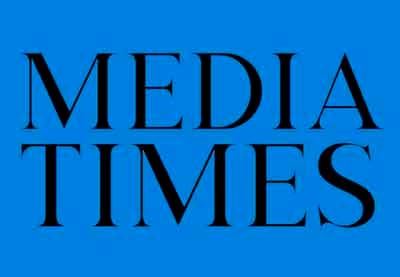
15 Fonts Similar to Cambria
What font is similar to Cambria? If you're looking for a clean, versatile font similar to Cambria, check out this list. You'll find the perfect Cambria font alternative and some other font inspiration too.
What Font Is Similar to Cambria?
If you're curious about what is similar to a Cambria font style, you're likely looking for a clean, classy serif font. A solid Cambria alternative is going to work well at both large and small sizes.
One of the reasons why fonts similar to Cambria are such a great choice is their versatility. If you need a standout font for a logo or title, a good Cambria alternative can do the job. Likewise, if you need a legible font for body copy, it's also a great choice. A font family like this is an excellent addition to any designer's font library.
Serif type, like the Cambria font, can work particularly well for long-form copy. Notice how it reads comfortably at smaller sizes. However, it's still a beautiful font—it can hold its own, especially if you use something like fonts similar to Cambria Bold. Font families like this can have so many diverse use cases.
15 Fonts Similar to Cambria to Download Now
1. Matina Serif Font (OTF, TTF, WOFF)
This beautiful serif font is so clean and easy to read. It's a great example of a font that scales very nicely. It works well for points of emphasis, like titles or headlines. However, it also remains legible and clear at small sizes.
2. Ranira Serif Type (OTF, TTF, WOFF)
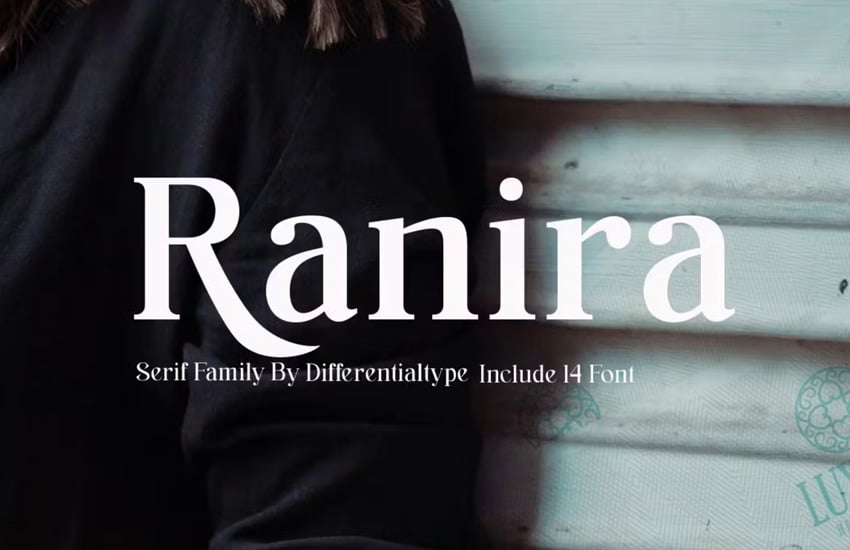
If you love serif type but you're looking for something a little more decorative, check out a font like this one. It does scale nicely, but it's a better fit for titles or even logo design. This font family includes seven variants.
3. Elfredo Serif Display (OTF, TTF)
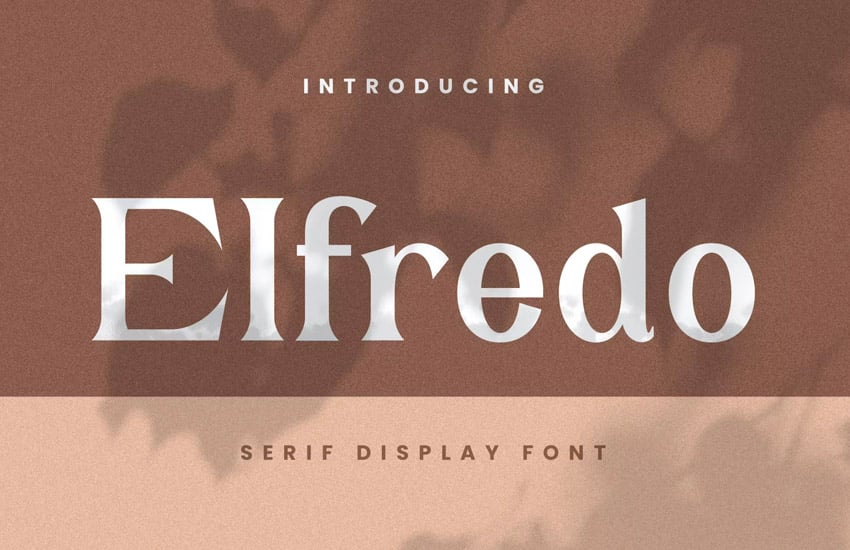
Check out the stylish serifs in this display font. It's a stylish aesthetic, and this one could pair really nicely with a signature font or a script font. If you're looking for a serif with plenty of logo potential, give this one a try.
4. Tamarind Modern Serif (OTF, TTF)
This modern serif font is also a stylized take on an aesthetic similar to the Cambria font. It scales nicely, as we see in this lovely example. However, this font would likely shine strongest in points of emphasis, like your headlines or titles.
5. Magreb Serif Font Family (OTF, TTF, WOFF)
Looking for a versatile font family that can do it all? This font is similar to Cambria, and it's packed with variants that you can use in your design work. Use this font in bold, semi-bold, italics, and more.
6. Moreland Serif Display Font (OTF, TTF)
Here's a serif font that pushes the look in a different direction. Aren't the stylish swoops visually interesting? This would be an excellent choice for display type or a logo design project.
7. Vanio Serif Font Family (TTF)
If you're looking for a complete serif font family with lots of options, choose this one. You get ten different options to work with, from bold to italic. All of these options make Vanio an excellent and versatile choice.
8. Montel Serif Font (OTF, TTF)
If you like fonts similar to Cambria but you also fancy high contrast, a font like this one might be right up your alley. It would be an excellent choice for a luxurious design project. This font could also really work well paired with a script font.
9. Elgraine Font Family (OTF, TTF)
Here's another serif font family packed with options. If you're looking for fonts similar to Cambria bold, regular, or italic, Elgraine is a perfect choice. You get all of those options and more with this professionally designed font.
10. Sibre Serif Type Family (OTF, TTF, WOFF)
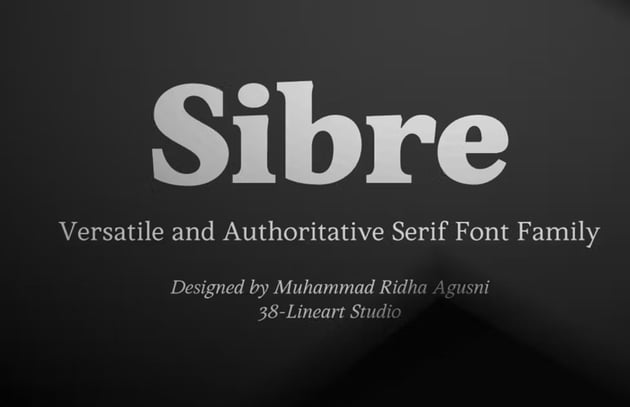
If you love fonts similar to Cambria Bold, there's plenty for you to see in this professional font family. Check out just how bold the weight in this family can get! Choose from a variety of styles in this versatile family.
11. Jacqualine Elegant Serif (OTF, TTF)
This elegant serif font incorporates some really memorable and playful curls. It's a fun choice if you fancy the look of a Cambria font style, but you're also looking for a little more whimsy. Give this font a try, especially at larger sizes.
12. The Memories Vintage Serif Font (OTF, TTF)
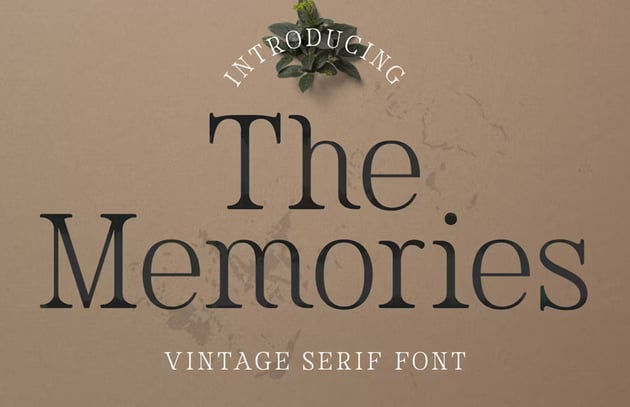
Here's an interesting take on serifs. The curves make for a really memorable look. There's vintage influence here, and you could play into that look in a variety of ways too. Try this serif font out if you're looking for a truly different font.
13. Mauren Serif Font Family (OTF, TTF, WOFF)
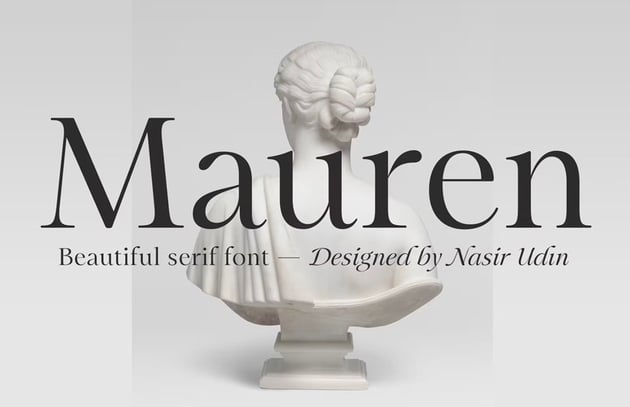
Now this is a classy serif font. Fonts like Cambria tend to be versatile, and this serif font is no exception. It's one of those fonts that could work in so many design situations, because it's such a robust font family.
14. Megafield Stylish Serif Family (OTF, TTF, WOFF)
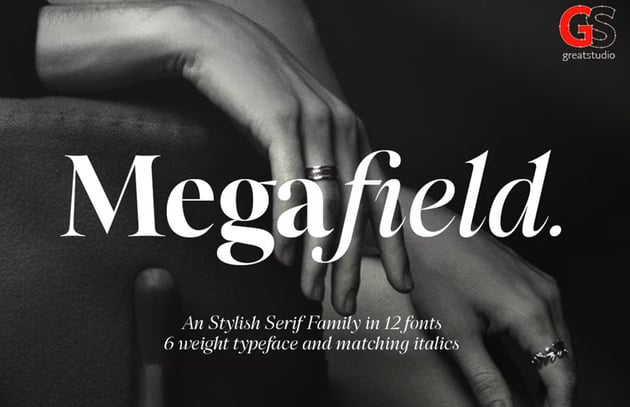
If you love the versatility and diversity of a complete font family, here's another serif font you're going to love. There's six weights here, with italics and more. It's an excellent choice if you're looking for a classy font similar to Cambria.